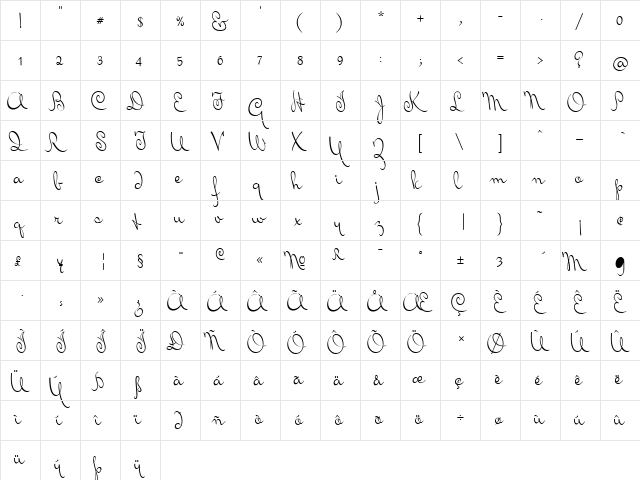
MrsVonEckley Regular
MrsVonEckley is a composed and adaptable typeface that performs quietly and consistently across a wide range of design contexts.